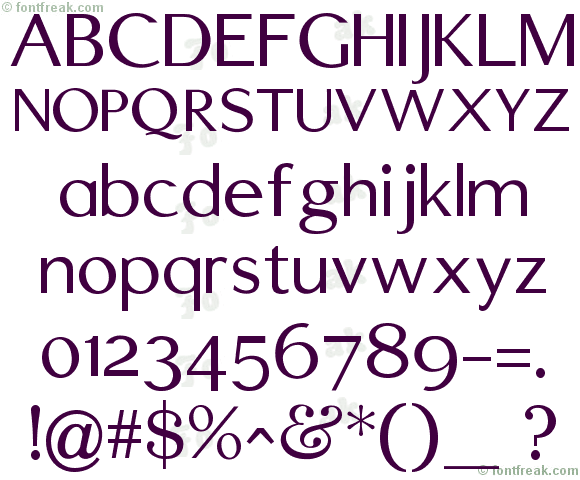
Edmundsbury Sans Regular
Edmundsbury Sans Regular, designed by Steve Gardner, is a clean and modern sans-serif font that embodies simplicity and sophistication. This font features a consistent stroke weight with minimal contrast, making it versatile for a variety of design applications. The letterforms are well-balanced and exhibit generous spacing, ensuring readability in both large and small sizes. Its understated elegance is enhanced by subtle geometric shapes, giving it a contemporary feel without being overly decorative.
This font is ideal for a range of specific use cases. It works wonderfully for branding projects, such as logos and business cards, where clarity and professionalism are paramount. Additionally, it is a great choice for website headings and body text, providing a seamless user experience. Restaurant menus can benefit from its clean lines, offering a modern touch while maintaining legibility. Moreover, Edmundsbury Sans Regular is suitable for marketing materials, such as brochures and flyers, where a polished appearance is essential.
What truly sets Edmundsbury Sans Regular apart is its ability to adapt to various contexts while maintaining an air of sophistication. This font brings a refreshing balance of form and function, making it a valuable addition to any designer’s toolkit. Whether you're creating digital content or printed materials, the Edmundsbury Sans Regular font free download provides an excellent option for those who prioritize both aesthetics and readability.